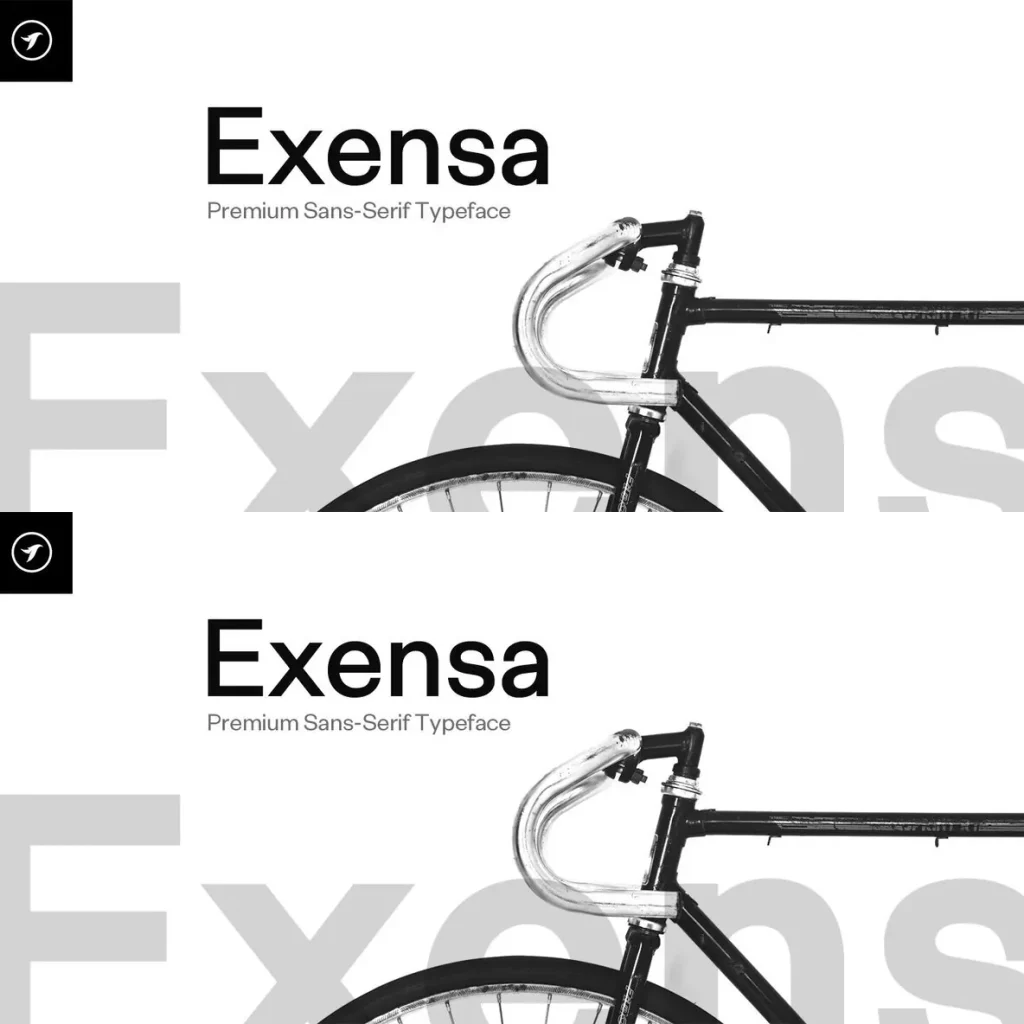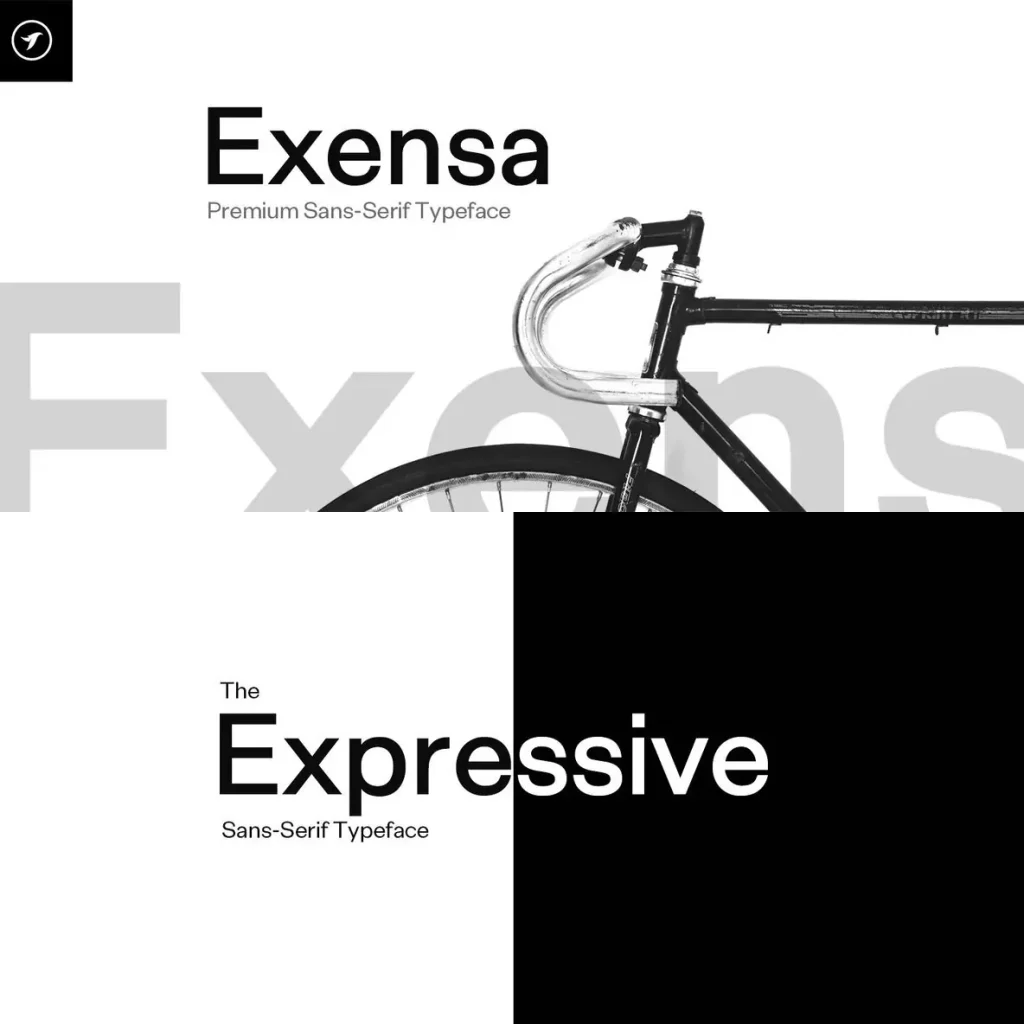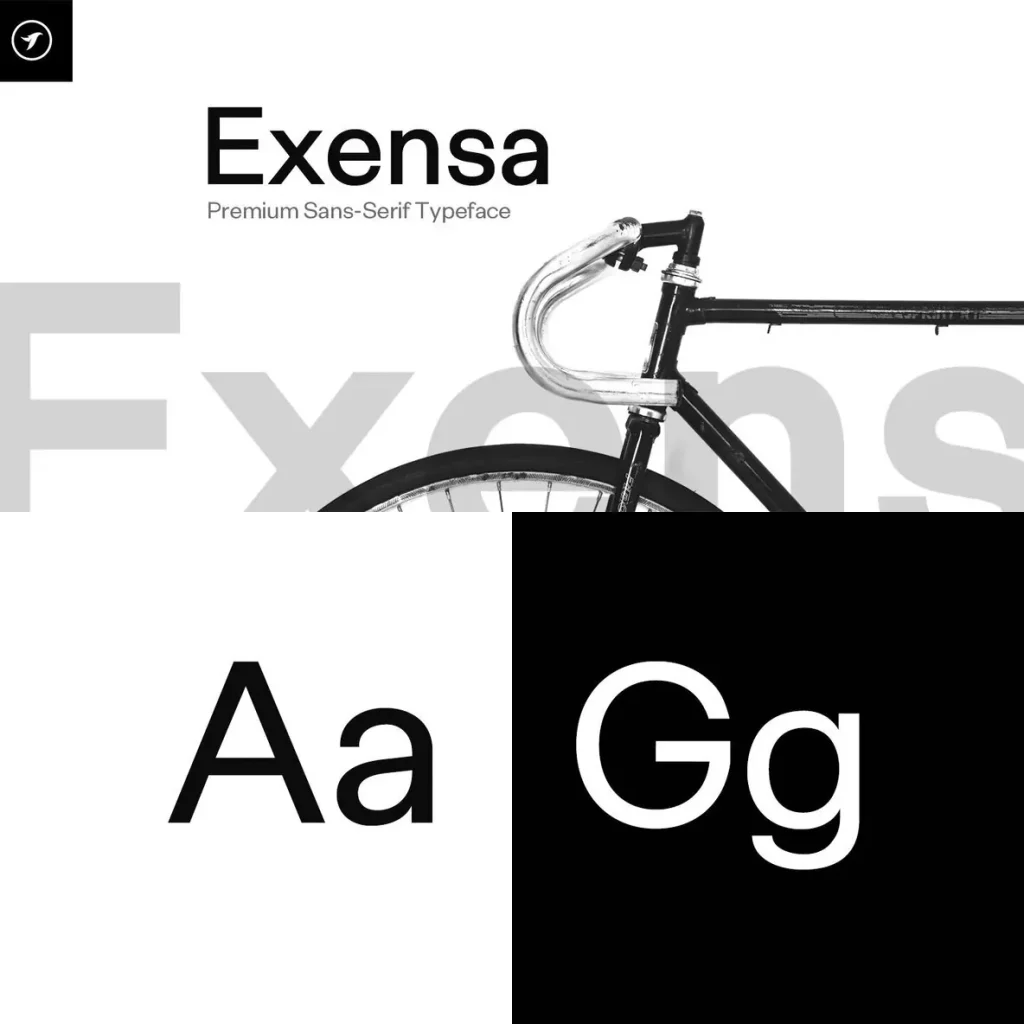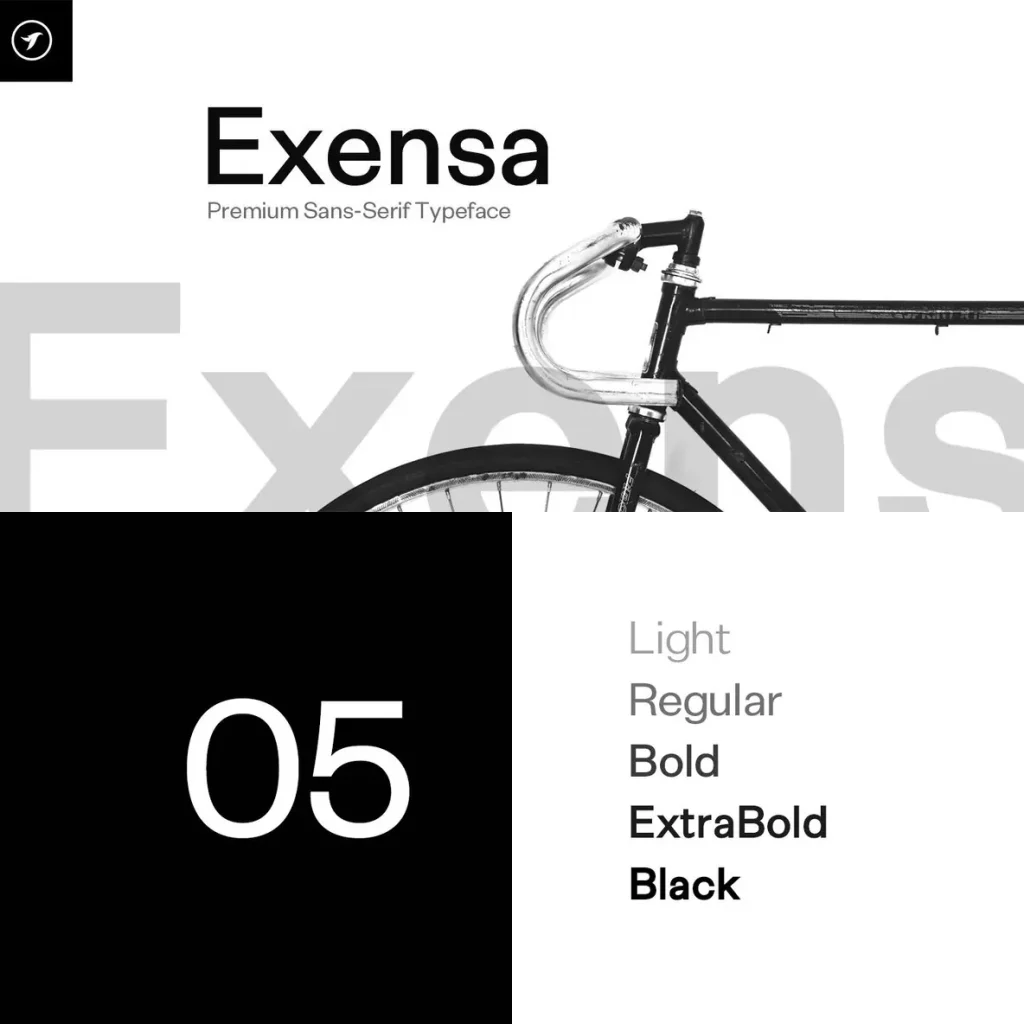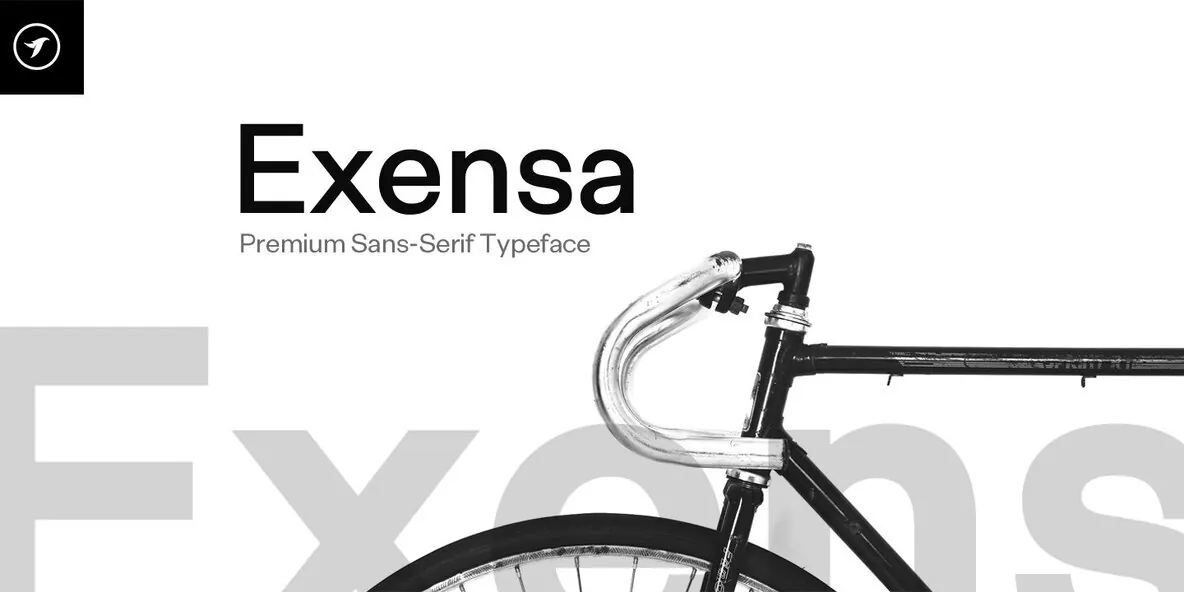
Exensa Grotesk — Precision in Plain Sight
Exensa Grotesk is a modern grotesque typeface built with geometric precision, clean construction, and a professional visual character. Its balanced structure supports excellent readability while giving text a strong contemporary identity. The design feels orderly and assured, making it suitable for work that needs clarity without losing presence.
Use Exensa Grotesk across branding, editorial design, web projects, user interfaces, corporate identities, and digital communication. Its clean grotesque form gives designers a dependable typographic voice for structured layouts, digital systems, and polished visual identities. With its precise geometry and readable texture, Exensa Grotesk brings a confident tone to modern design work.